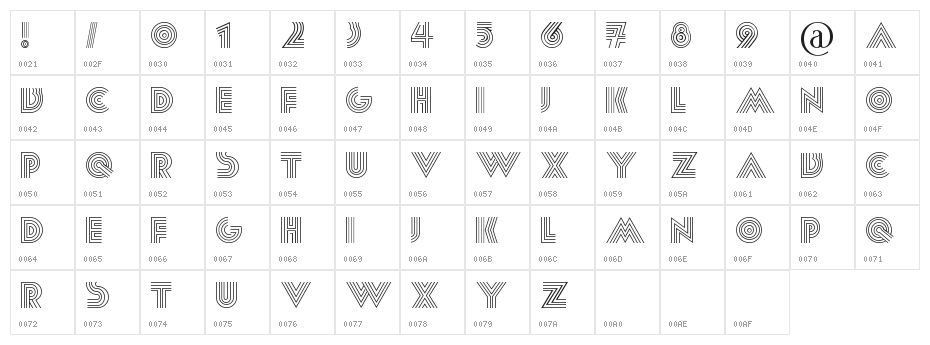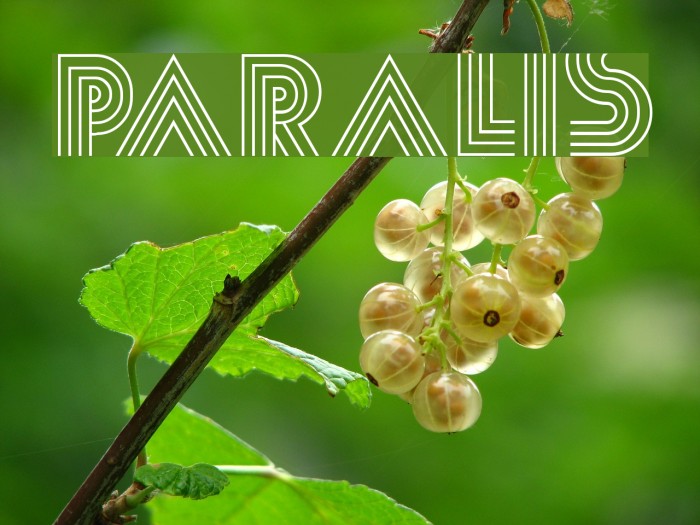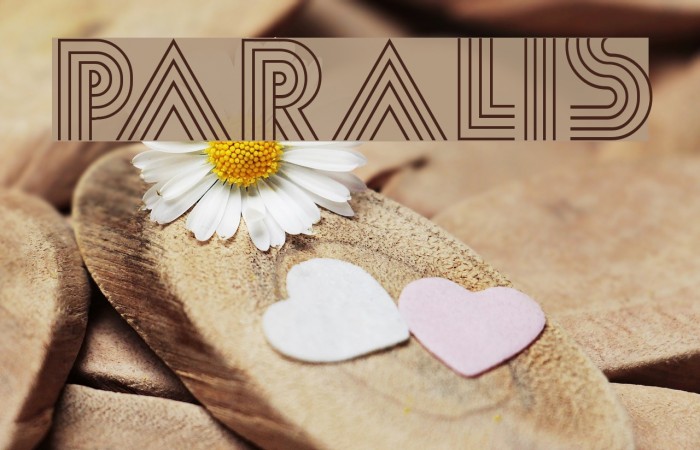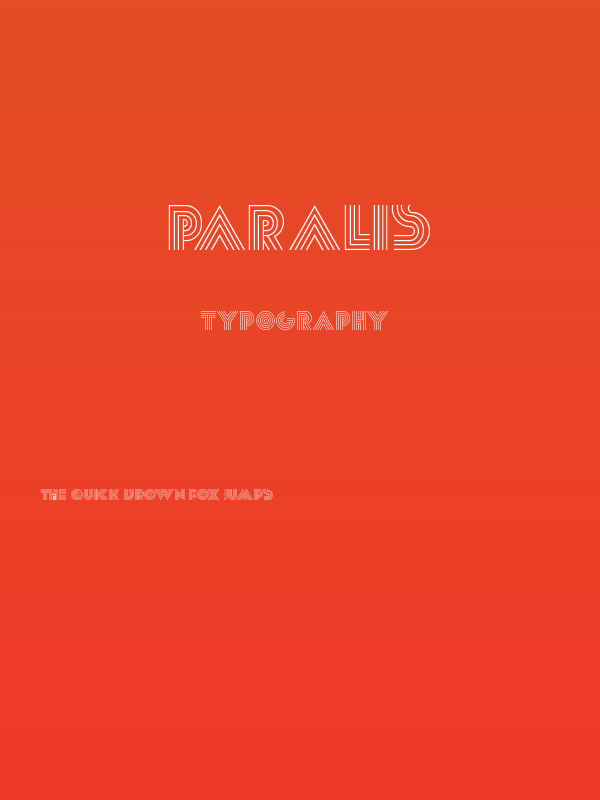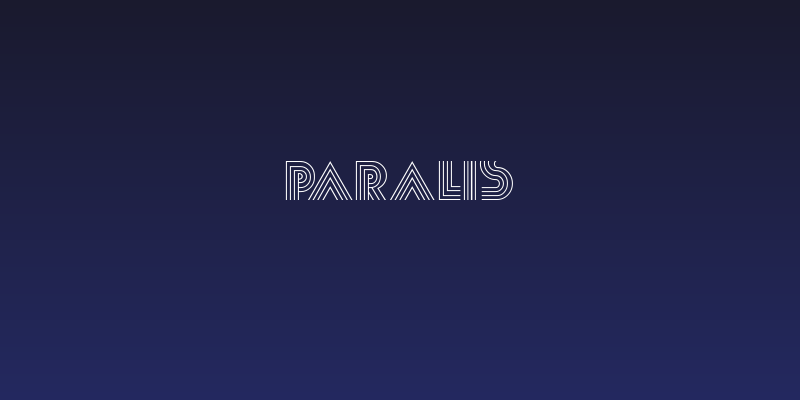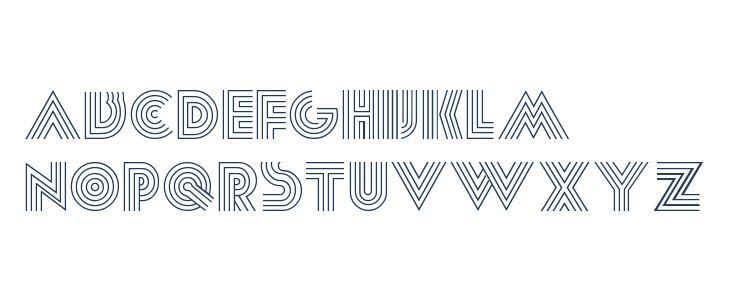
Paralis Font
Paralis Description
This font features a unique, geometric design with multiple parallel lines forming each character, creating a striking visual effect. The uppercase letters are bold and structured, with a futuristic and modern aesthetic. The numbers and special characters follow the same design principle, maintaining consistency throughout. The font's style is highly decorative, making it ideal for attention-grabbing headlines or artistic projects. Its intricate line work and symmetry give it a sophisticated yet playful appearance, suitable for creative and contemporary designs.
| Overall Style | Modern, Futuristic, Decorative |
| Proposed Projects | Ideal for branding, posters, album covers, and any project requiring a bold, artistic touch. |